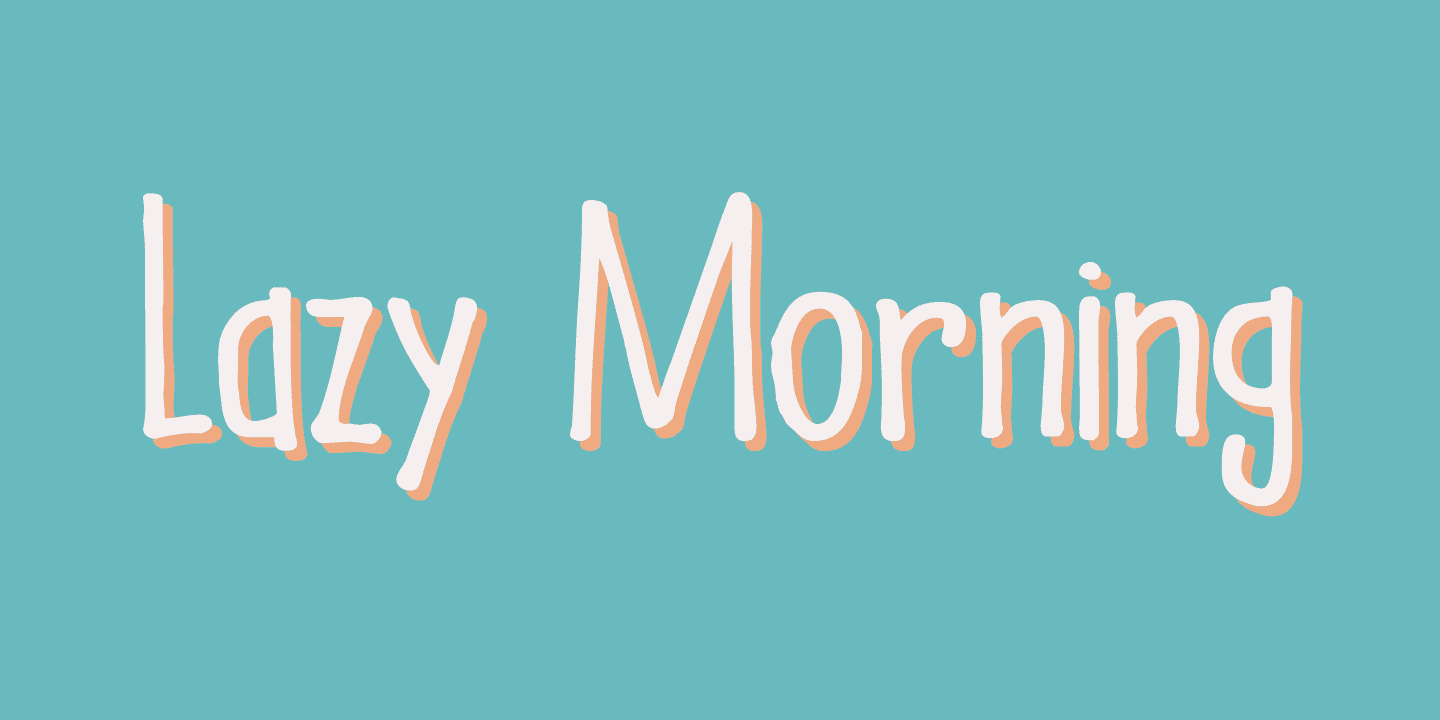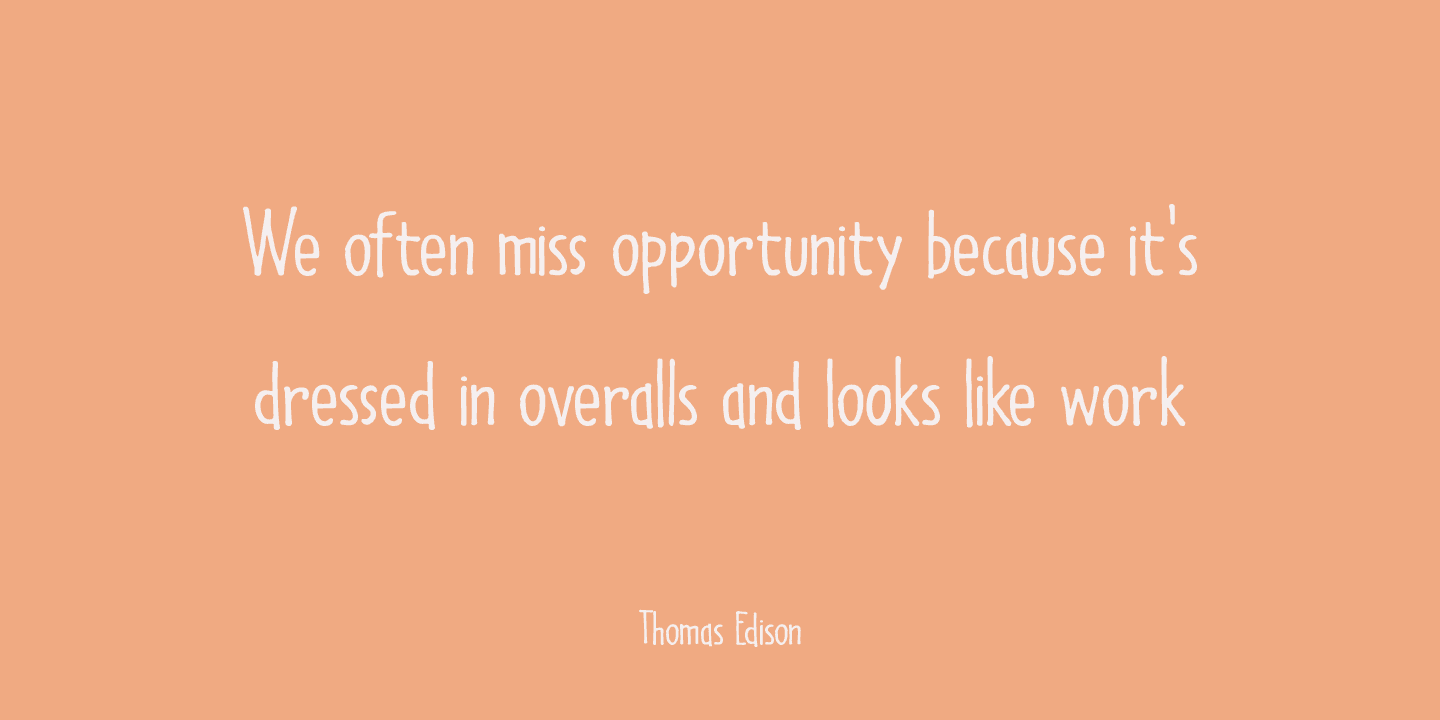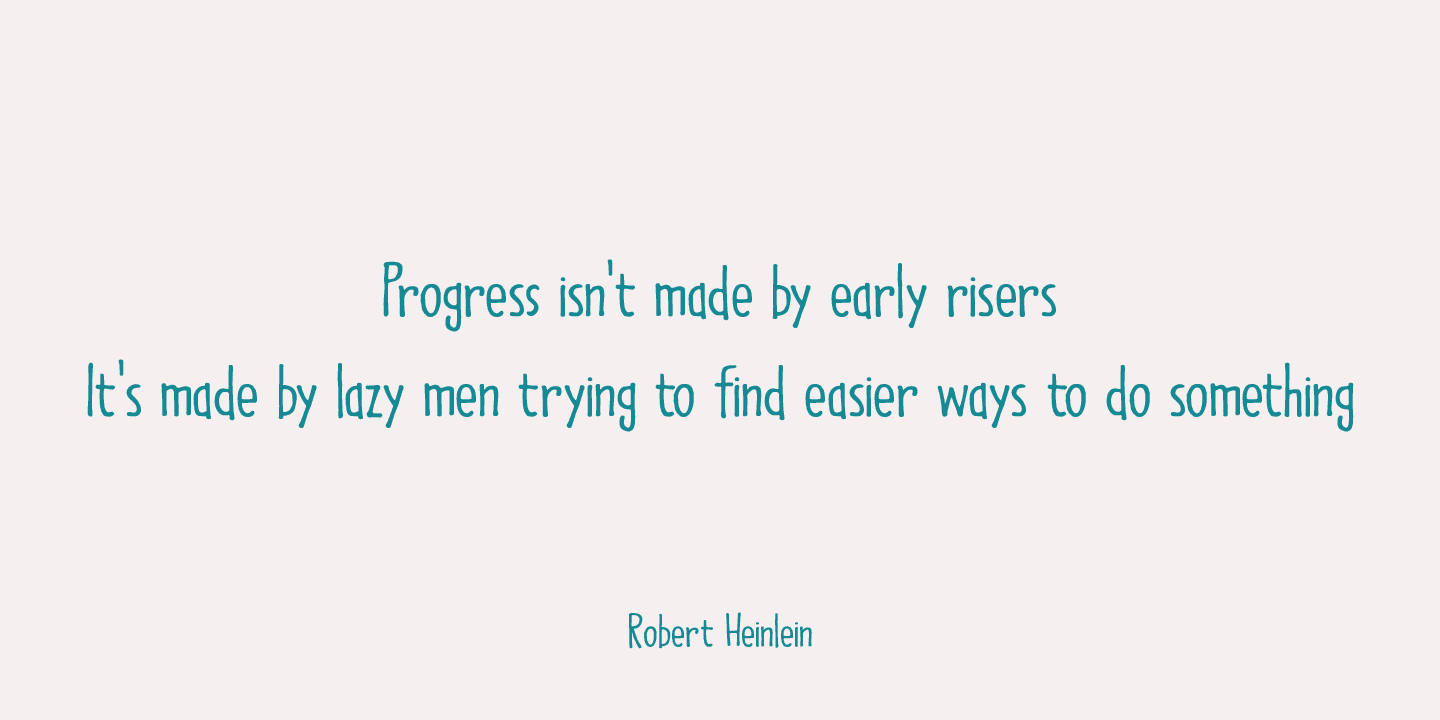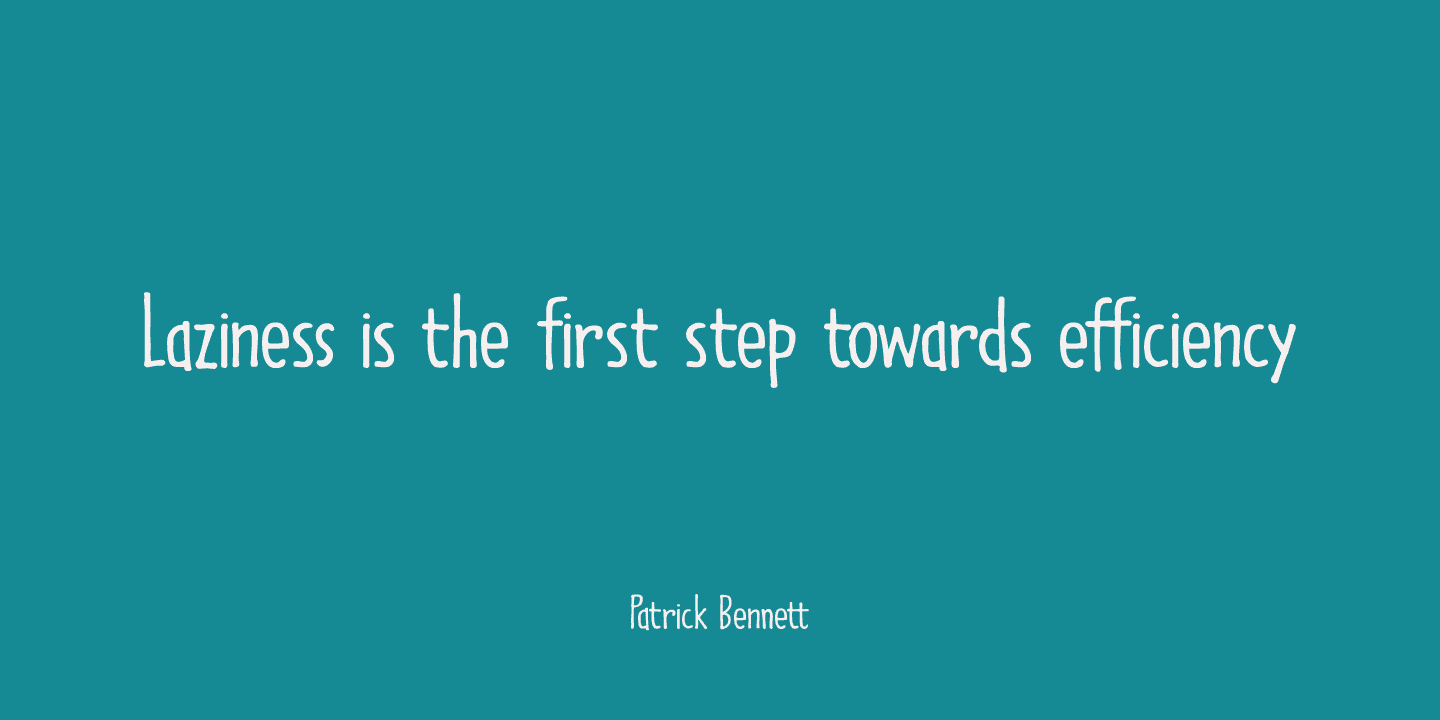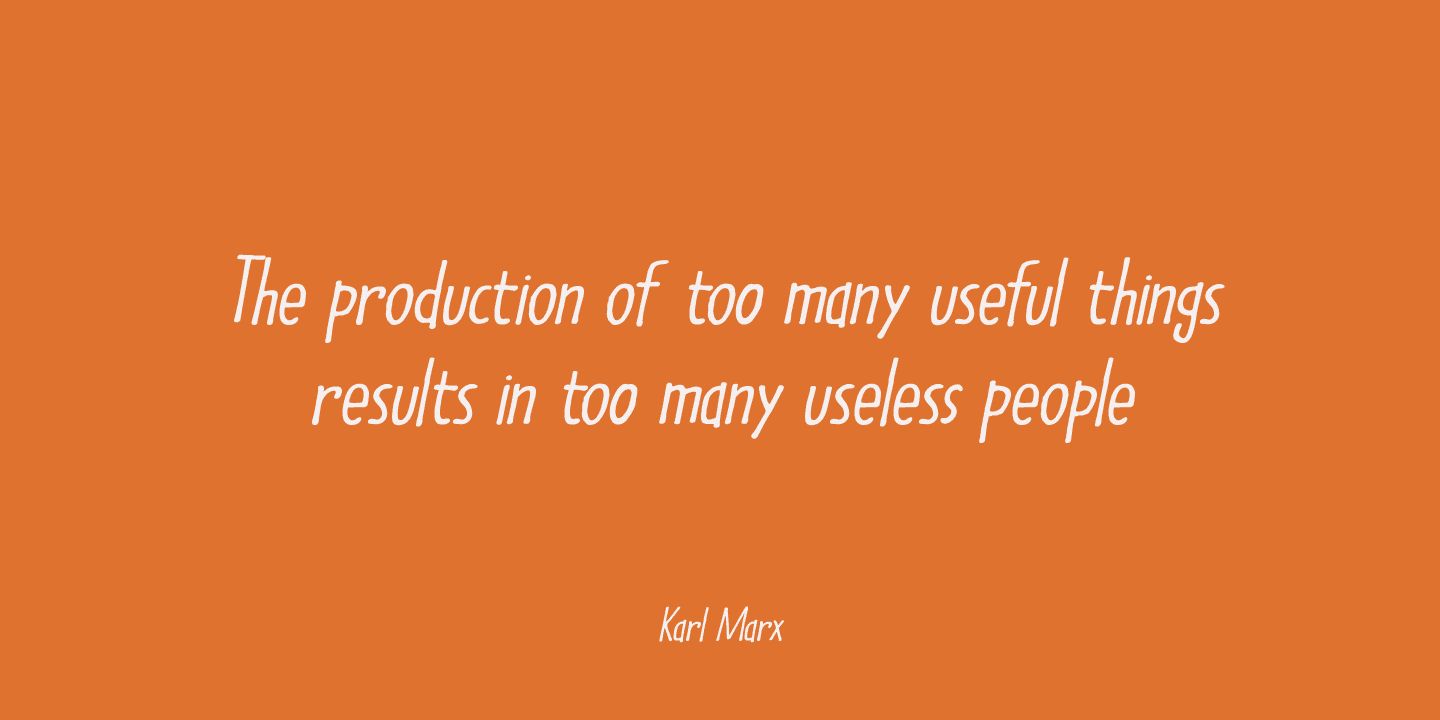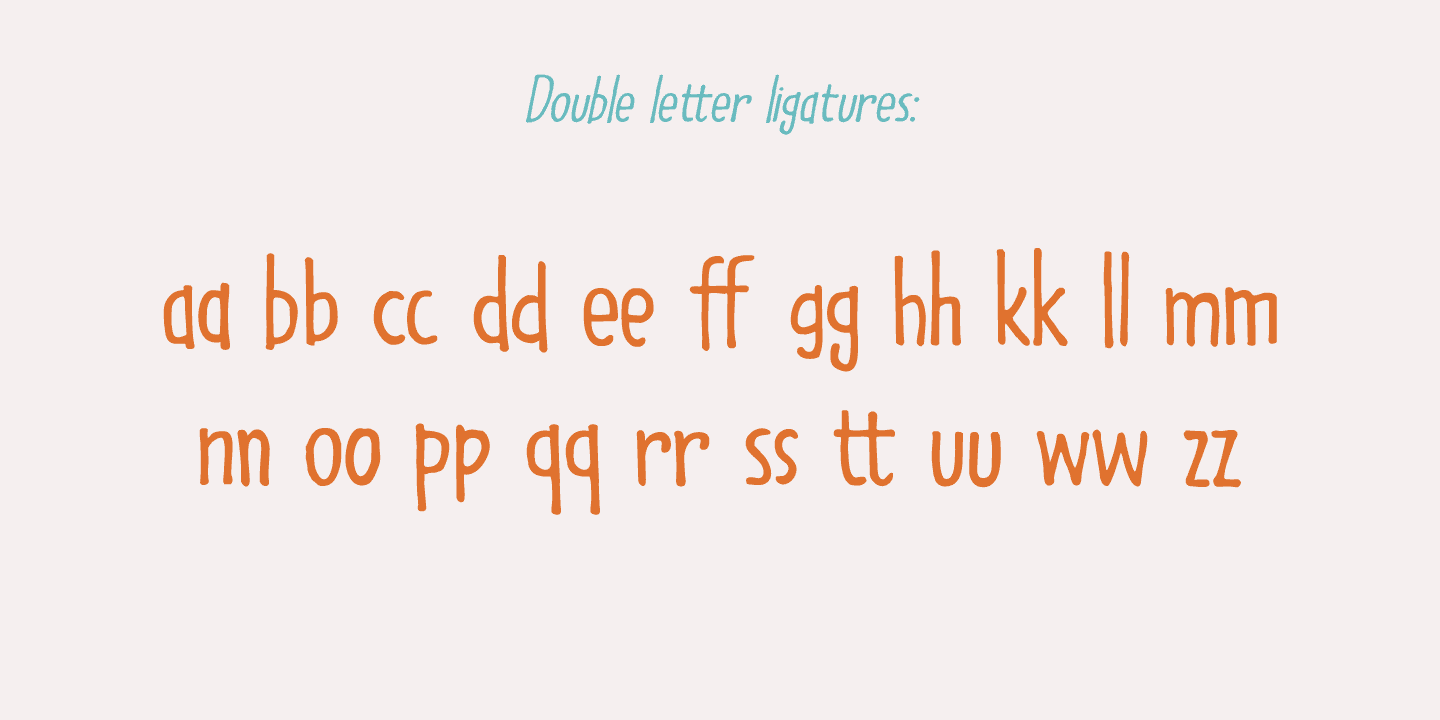
Lazy Morning Family (2 fonts)
Lazy Morning is a nice handwritten font. I made it with a Sharpie pen. It comes with all diacritics and double letter ligatures for you to play with.